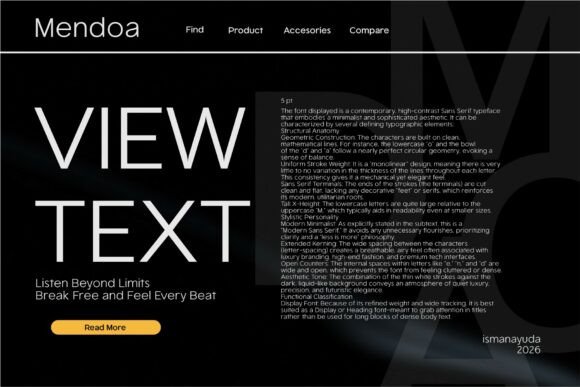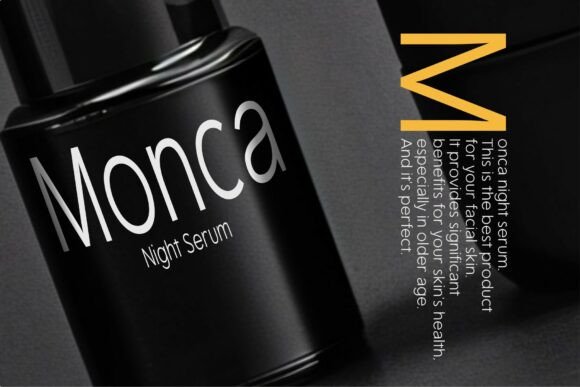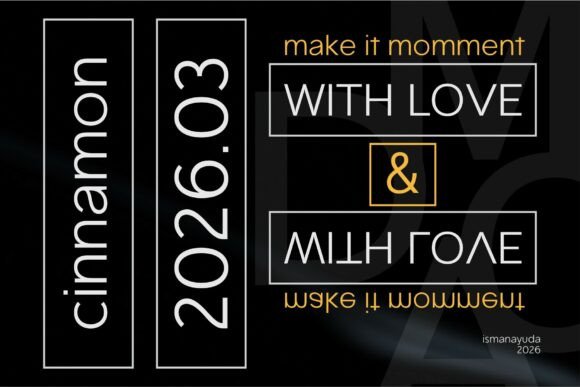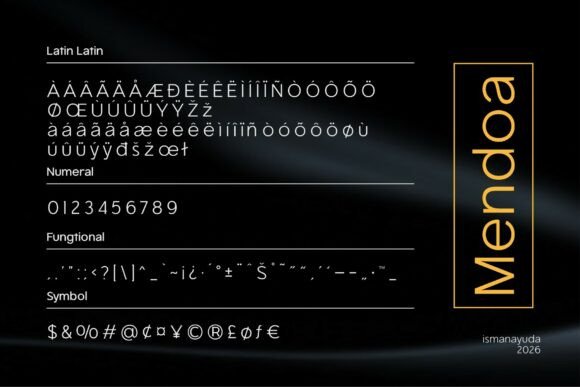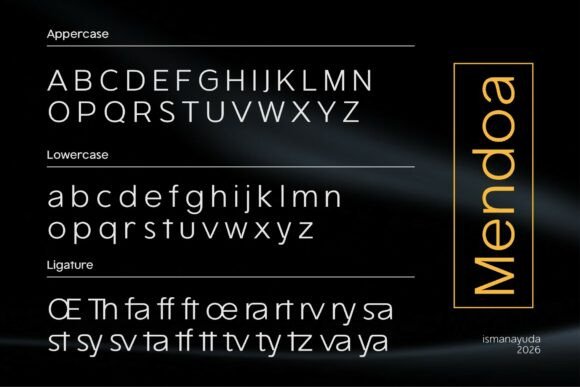
Introduction to Mendoa Font Font
Fonts play a crucial role in design, and the Mendoa Font font is a typeface that brings both character and versatility to any project. Whether you’re working on a branding project, a website, or a print design, the Mendoa Font font offers a unique style that can elevate your work.
The font displayed is a contemporary, high-contrast Sans Serif typeface that embodies a minimalist and sophisticated aesthetic.
It can be characterized by several defining typographic elements: Structural Anatomy Geometric Construction: The characters are built on clean, mathematical lines For instance, the lowercase āoā and the bowl of the ādā and āaā follow a nearly perfect circular geometry, evoking a sense of balance.
Key Features of Mendoa Font Font
- ā High-quality typeface designed for professional use
- ā Includes a wide range of glyphs and characters
- ā Ideal for logos, branding, websites, and print
Why Choose Mendoa Font Font?
The Mendoa Font font is more than just a typeface ā it’s a design tool that helps you communicate your message with style and clarity. Its unique character set and versatile design make it suitable for a wide range of applications, from elegant invitations to bold headlines.
With its carefully crafted letterforms and balanced proportions, the Mendoa Font font ensures readability and visual appeal across all mediums.
What makes Mendoa Font font special?
The Mendoa Font font stands out with its unique design, exceptional readability, and versatility across various design applications.